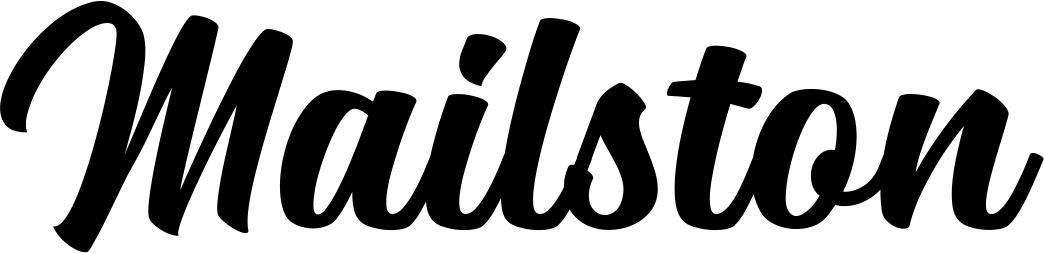
Mailston Font
Designed bySupotype Studio
In graphic works such as logo design or web pages, the use of appropriate fonts is one of the main rules. You may not know which one to use among the dozens of different fonts. Mailston could be the right choice. Mailston is a script font. This font conveys a sense of personalization to the audience.